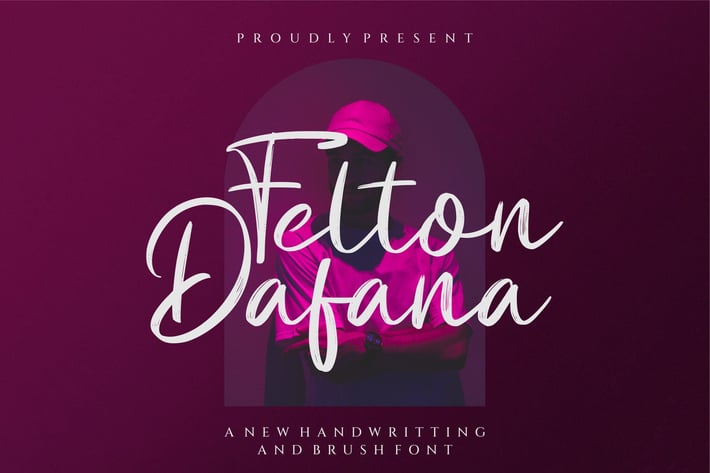
Felton Dafana_brush font
Felton Dafana a new signature brush font script developed using a brush pen, As this particular font is scanned at a very high resolution, it has very strong personality as a result. and I just making this font for all typographer lover. Very perfect for logotype, t-shirt design, typography poster, quote design, etc.